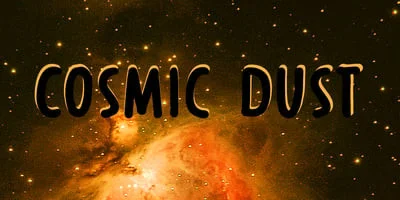
Cosmic Dust Font
Cosmic Dust Font is ideal for space-themed and futuristic applications including science fiction movie titles, astronomy presentations, planetarium displays, space technology branding, cosmic event posters, astrology publications, futuristic game interfaces, and interstellar music album covers. This celestial typeface brings otherworldly mystery and cosmic wonder to projects exploring the infinite expanse of space and future possibilities.
What makes Cosmic Dust Font exciting is its ethereal capture of stellar phenomena and cosmic beauty through typography. The font features letterforms with subtle texture variations and sparkling details that evoke the shimmering quality of stardust and nebular clouds. Its mystical character design incorporates organic irregularities and celestial elements that create an immediate sense of cosmic scale and astronomical wonder while maintaining readability across various applications.
The Cosmic Dust Font family encompasses multiple stylistic variations and textural effects that enhance the space-age aesthetic. From clean stellar weights for scientific applications to heavily textured variants for dramatic cosmic impact, each style maintains the signature celestial character. The family includes decorative elements and astronomical symbols that amplify the font's ability to communicate cosmic themes and futuristic concepts.
Space enthusiasts and science fiction creators consistently select Cosmic Dust Font for projects requiring authentic cosmic typography and futuristic appeal. Whether developing astronomy educational materials, creating science fiction entertainment content, or designing space technology interfaces, this font delivers exceptional atmosphere and otherworldly presence. Its unique combination of cosmic inspiration and contemporary functionality makes it an invaluable tool for communicators seeking to transport audiences beyond earthly boundaries and inspire wonder about the infinite mysteries of the universe.